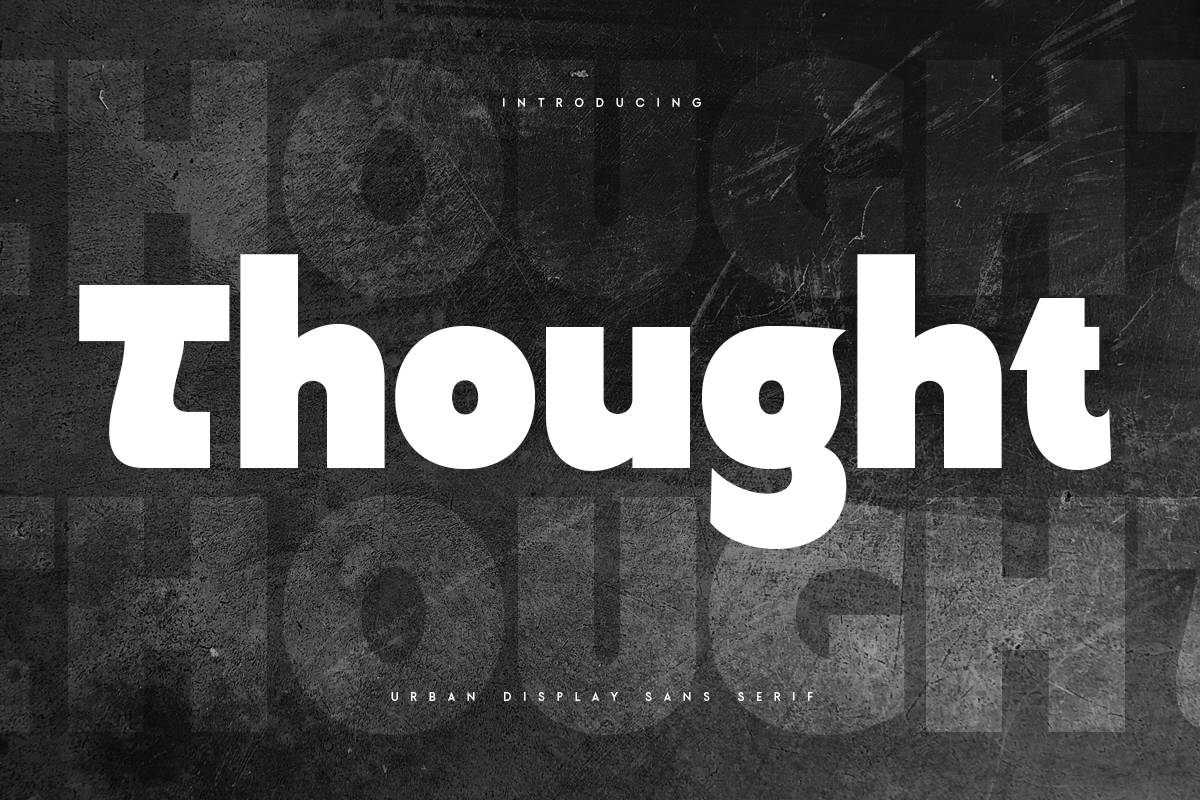
Thought
-Urban Display Sans Serif
A Sans serif that we created special for Urban style, with extra alternates in unique shape will be ready to add value of your project. It so nice to leverage designer or artist that need solutions to make their design look more unique and urban style. And specially for this font, We prepared any alternate characters to help you create another variations for your creative needs.